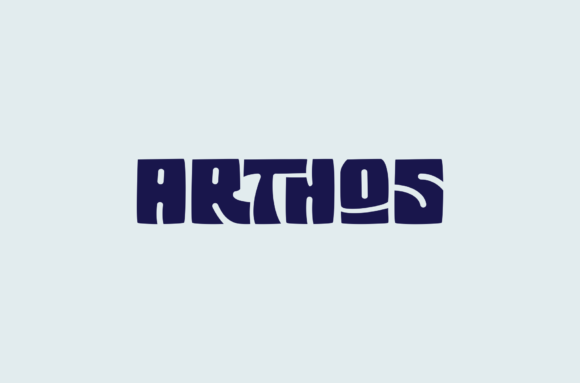
Behold the Arthos Family Font, a captivating display font family that exudes vibrancy and playfulness. Dive into the world ofArthosis energy and let your creativity flourish.
Unleash a new level of expression with Arthos' captivating curvy lines and sharp nodes. Its unique style infuses your designs with a refreshing tropical vibe. Arthos' versatility shines through, making it an ideal choice for an array of projects.
Design captivating logos that exude personality, create eye-catching headlines that demand attention, or craft unique social media graphics that resonate with your audience. Arthos seamlessly adapts to various design styles, allowing you to convey your message with flair.
Arthos' four distinct styles offer endless possibilities. Choose from Regular, Bold, Italic, and Bold Italic to match the mood and tone of your project. Each style carries its own charm, ready to elevate your designs to new heights.